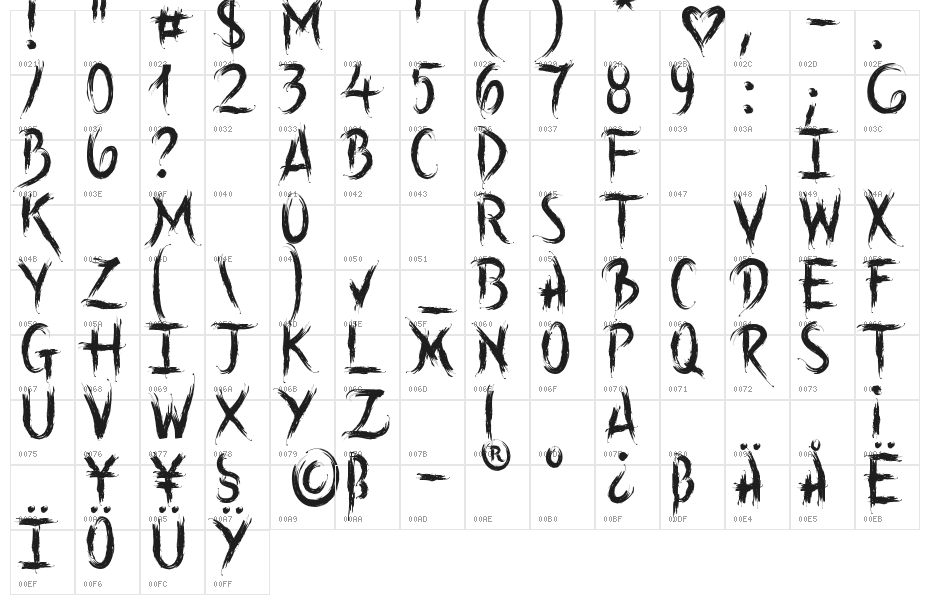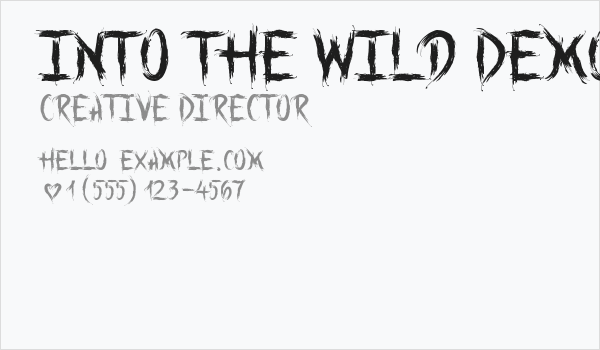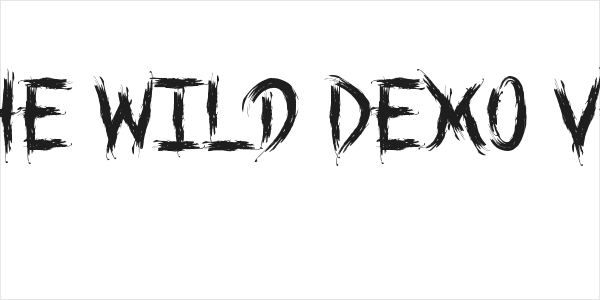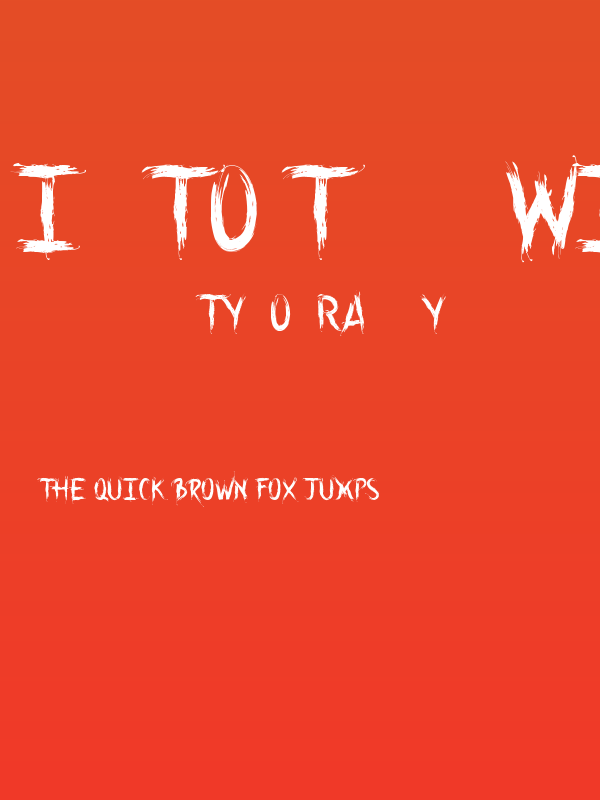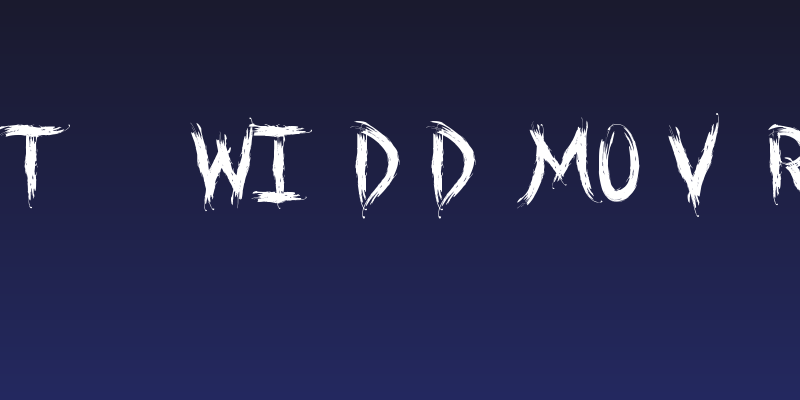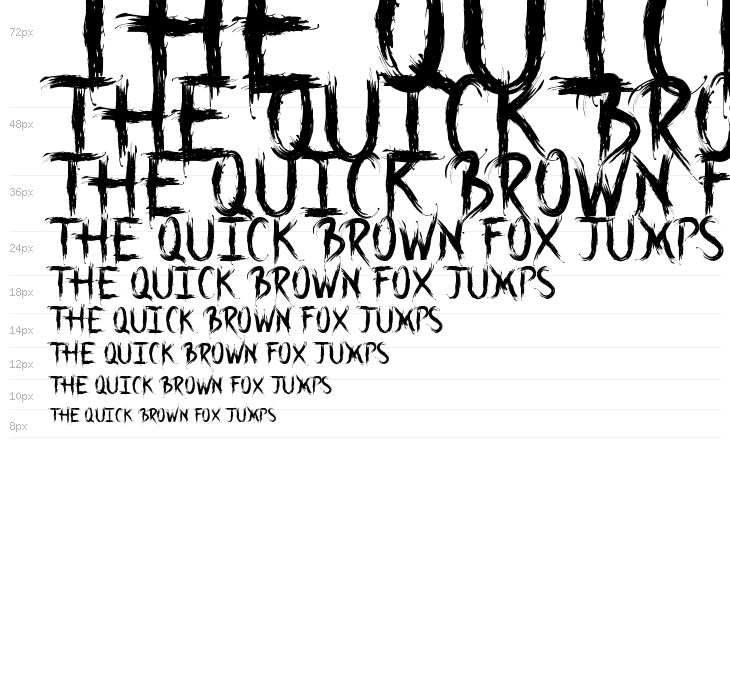
Into the Wild Demo Version Font
Into the Wild Demo Version Description
This font features a bold, brushstroke style that exudes a sense of wildness and untamed energy. The characters are crafted with a rough, textured appearance, reminiscent of hand-painted letters. The strokes vary in thickness, adding a dynamic and spontaneous feel to the text. The uppercase and lowercase letters maintain a consistent style, with jagged edges and irregular shapes that enhance the raw aesthetic. Numbers and special characters follow the same design principles, ensuring a cohesive look across all elements. This font is ideal for projects that require a bold, artistic touch.
| Proposed Projects | Perfect for album covers, posters, branding for edgy or artistic ventures, and any project needing a bold, expressive typeface. |